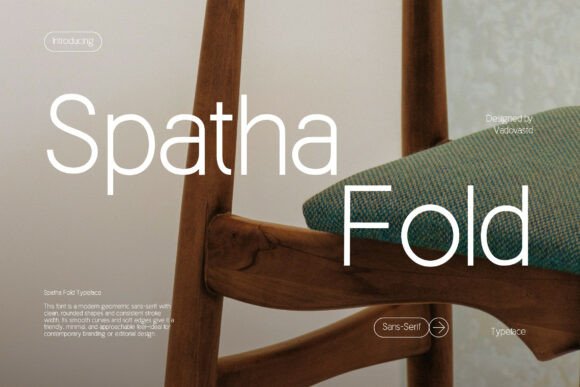
Spatha Fold for Modern Web Typography
I was working on a redesign for a boutique online store, and the first thing I noticed was how much the right font can change the entire feel of a website. After experimenting with a few options, I landed on Spatha Fold—a clean, geometric sans-serif typeface that brought a fresh energy to the project.
Spatha Fold has this smooth, modern look that feels both minimal and intentional. The curves are subtle but not too soft, and the spacing between letters gives it a crisp, contemporary vibe. It’s not just another sans-serif; it’s one that feels like it was built for digital spaces, especially when you need something that looks polished without being too sterile.
I started by testing it in the hero section. The headline needed to stand out over a full-width image banner, and Spatha Fold handled that well. Its bold weight gave the title enough presence, while the lighter weights worked beautifully for subheadings and supporting text. I could see how it would fit into editorial layouts or even interior design presentations, as mentioned in the product description.
One thing I paid close attention to was readability. On mobile screens, the font remained legible even at smaller sizes. That’s crucial because so many users access websites from their phones. I also tested it against dark and light backgrounds, and it maintained good contrast in both scenarios. When placed over an image overlay, it didn’t get lost—it stood out just enough to be readable without overpowering the visuals.
For the call-to-action buttons, I considered using a bolder variant of Spatha Fold. But since the buttons were already styled with a solid background, I opted for a slightly lighter weight to keep the focus on the action rather than the font itself. This small decision helped maintain visual balance across the page.
When it came to pairing fonts, I thought about combining Spatha Fold with a more decorative display font for logos or headlines. But for body copy, it paired perfectly with a simple serif font. The contrast between the two created a nice rhythm, making the content feel more dynamic and engaging. It’s always important to consider how different fonts interact, especially if you're building a brand identity around typography.
As I continued through the layout, I found that Spatha Fold worked really well in section headings and blog headers. It had the right amount of character to make each section feel distinct, yet still part of a cohesive design. In a course sales page, it helped guide the user’s eye naturally from the headline down to the key features, which improved the overall scanning behavior.
On the portfolio homepage I was designing, I used Spatha Fold for the main navigation. The clean lines and consistent spacing made the menu feel intuitive and easy to use. Even though the site was minimalist, the font added enough personality to prevent it from feeling too flat or lifeless.
Overall, Spatha Fold became a go-to choice for this project. It wasn’t just about aesthetics—it was about how well it performed in real-world scenarios. From mobile responsiveness to brand consistency, it delivered on all fronts. Whether you're building a landing page, a coaching website, or a digital brand kit, this typeface offers a versatile foundation that adapts to different needs without compromising on quality.
If you're looking for a modern sans-serif font that balances elegance with functionality, give Spatha Fold a try. It’s the kind of font that doesn’t shout for attention but still makes a lasting impression. And who knows? You might find yourself using it more than you expect in your next design project.